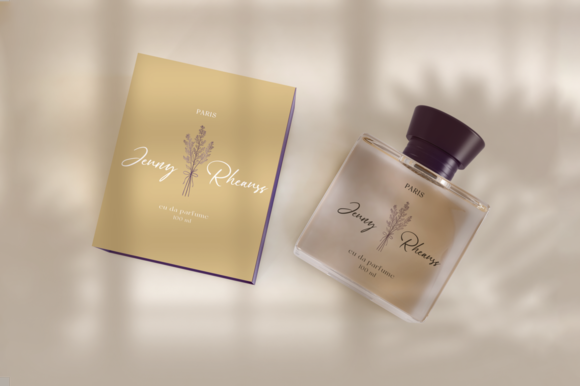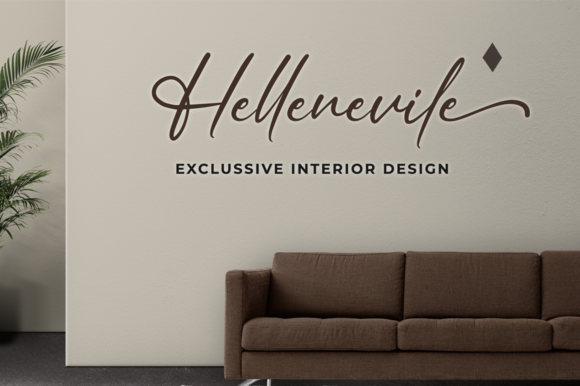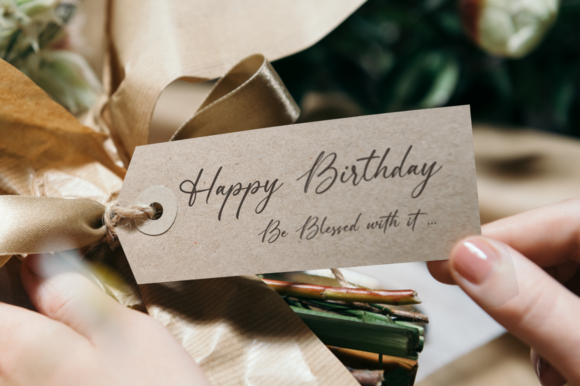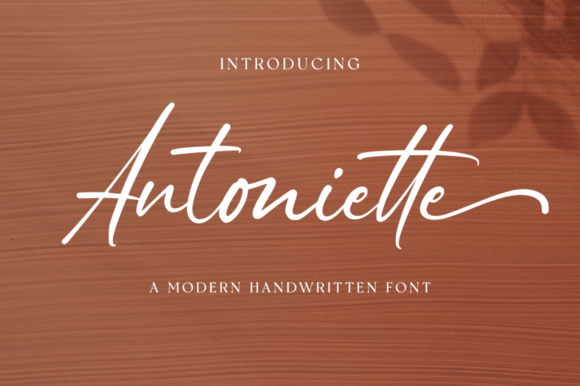
The Allure of Elegant Typography: Discovering Antoniette Font
Have you ever found yourself captivated by the intricate details of a beautifully crafted invitation or a perfectly chosen quote? For many of us, it’s the subtle nuances of typography that elevate a design from ordinary to extraordinary. And when it comes to creating truly memorable pieces, the right font can make all the difference.
Enter Antoniette Font, a charming and elegant typeface that exudes sophistication and refinement. Designed for versatility, Antoniette Font is perfect for wedding invitations, thank you cards, quotes, greeting cards, logos, business cards, and more. Its PUA encoding allows for seamless access to all glyphs and swashes, giving designers the freedom to unleash their creativity.
Antoniette Font Key Features
- Unique Characteristics: Elegant script font with a touch of classic charm, ideal for invitations, wedding stationery, and other special occasions
- X-Height: 0.55x
- Cap Height: 0.88x
Designer Review: Antoniette Font
As a designer, I was excited to try out the Antoniette Font, and overall, it’s a solid choice for various projects. ✨ One of the things that works well is its elegant and refined look, perfect for creating a sophisticated and high-end feel. The font’s curves and lines are well-balanced, making it suitable for both body text and headings.
- ✨ Elegant and refined look
- ✨ Suitable for various projects, including business cards, brochures, and magazines
- ✨ Wide range of font sizes and styles
However, there are a few limitations to consider. ⚠️ The font may not be the best choice for projects that require a lot of bold and dramatic text, as it can come across as too delicate. Additionally, the font’s lack of expressiveness can make it difficult to convey strong emotions or ideas.
Overall, the Antoniette Font is a great choice for designers who want a clean, elegant look for their projects. While it may not be the most versatile font, it’s a solid addition to any design toolkit.
- ⚠️ May not be suitable for projects that require bold and dramatic text
- ⚠️ Limited expressiveness
Tips for Getting the Most Out of Antoniette Font
Use Antoniette font for headings and titles to add a touch of elegance and sophistication.
Pair Antoniette font with bold or italic fonts for contrast and visual interest.
Experiment with different font sizes and colors to create a unique visual effect.
Luxury brand logos and marketing materials
High-end fashion and beauty branding
Alternatives to Antoniette Font for Designers
The Antoniette Font is a popular, elegant serif font used in various design projects. However, there are other alternatives that can offer unique characteristics and styles. Here are a few options to consider:
Playfair Display is a luxurious, high-end serif font ideal for creating a sense of sophistication and elegance. It is often used in high-end branding, advertising, and luxury packaging. Compared to Antoniette Font, Playfair Display has a more dramatic and ornate feel, making it suitable for projects that require a touch of opulence.
Lato is a modern sans-serif font that offers a clean and minimalist aesthetic. It is perfect for digital design projects, such as web and mobile applications, as well as for print materials like brochures and business cards. Lato is a more straightforward alternative to Antoniette Font, which has a more classic feel.
Carolyna Pro is a elegant, high-end serif font with a touch of sophistication. It is suitable for projects that require a sense of luxury and refinement, such as high-end branding, advertising, and packaging. Compared to Antoniette Font, Carolyna Pro has a more refined and precise feel, making it ideal for projects that demand attention to detail.